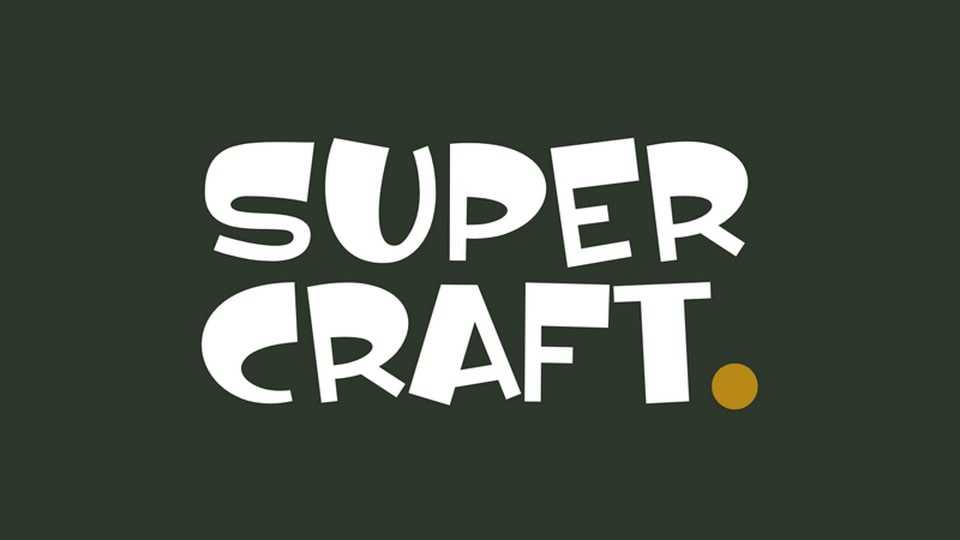
Download Super Crafty font, a bold, quirky, and playful cartoon typeface with vibrant contrast and bouncy letters that add a sense of joy and whimsy to your designs.